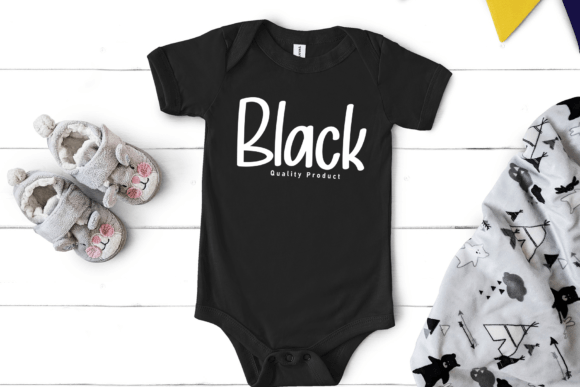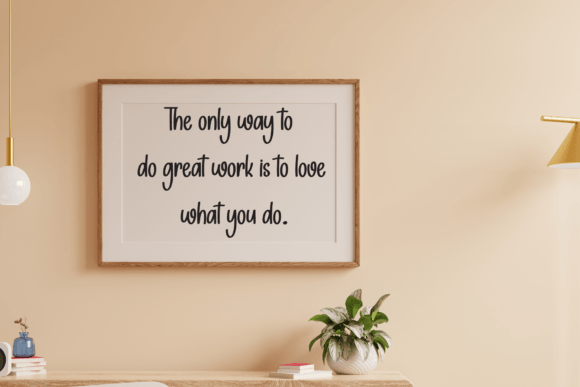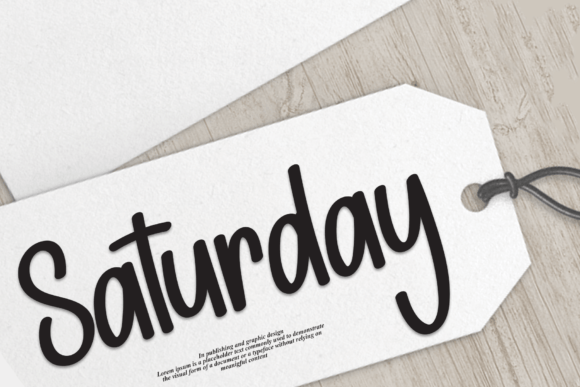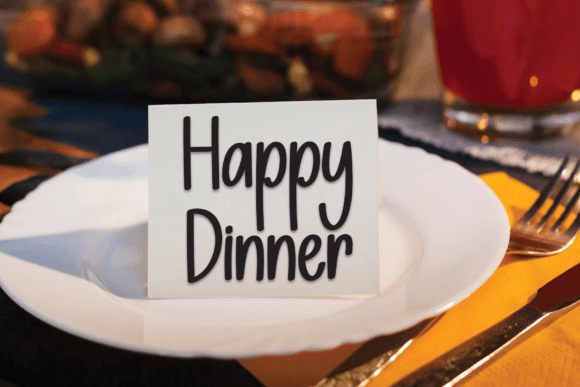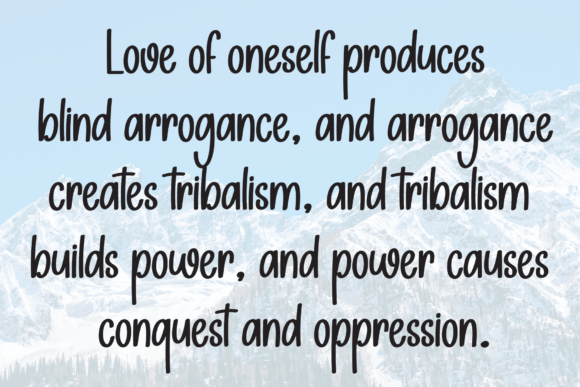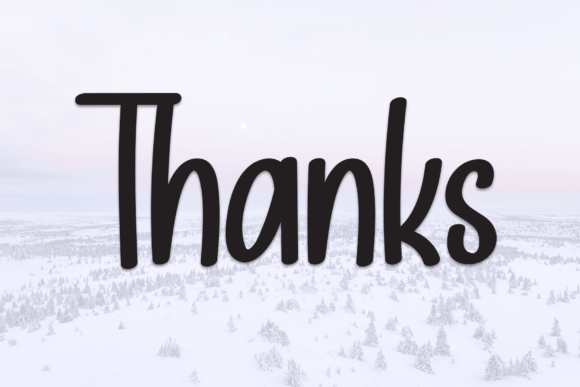
Unleash Your Inner Artist with the Barbie Winter Font
Remember the moment when you first discovered a font that made your design come alive? For me, it was the moment I stumbled upon the Barbie Winter Font. The instant I laid eyes on its charming, handwritten script, I knew I had to share it with fellow designers. This delightful font is the perfect companion for crafting unique and whimsical designs that exude warmth and creativity.
Whether you’re designing wedding invitations, greeting cards, or any other project that calls for a dash of playfulness, the Barbie Winter Font is the ideal choice. Its adorable essence masterfully speaks volumes about your ingenuity and style, making it a valuable addition to any designer’s toolkit. By incorporating this font into your designs, you’ll add a touch of joy and quirkiness that’s sure to captivate your audience.
Key Features of Barbie Winter Font
- Unique Characteristics: Barbie Winter Font features a unique blend of modern and vintage elements, with intricate details and ornaments that evoke a sense of winter wonder.
- Font Style: The font has a script and handwritten style, making it perfect for creative projects, invitations, and social media graphics.
Barbie Winter Font Review
Overall, I was quite excited to dive into the Barbie Winter Font, but unfortunately, it didn’t quite meet my expectations. Here’s a breakdown of what worked and what didn’t:
- The font does have a unique and playful feel to it, reminiscent of winter wonderlands.
- The font is highly customizable, with various styles and effects that can be applied to suit your needs.
- The font supports a wide range of languages, making it a great option for global projects.
- The font feels a bit too cutesy and childish, which may not be suitable for more professional or corporate projects.
- The font’s customization options can be overwhelming, making it difficult to achieve a consistent look.
- The font’s support for certain languages is limited, which may cause issues for projects that require more nuanced typography.
Overall, the Barbie Winter Font is a decent option for projects that require a playful, winter-themed aesthetic. However, it may not be the best choice for more serious or professional projects. With some refinement and attention to its limitations, this font could be a great addition to any designer’s toolkit.
Getting the Most Out of the Font
To get the most out of the “Barbie Winter Font,” use it in creative and playful ways, such as:
– Creating a festive holiday card or invitation.
– Designing a fun and colorful social media post.
– Adding a touch of whimsy to a children’s book or educational material.
The “Barbie Winter Font” is ideal for:
– Holiday-themed designs.
– Children’s products and marketing materials.
– Playful and creative projects.